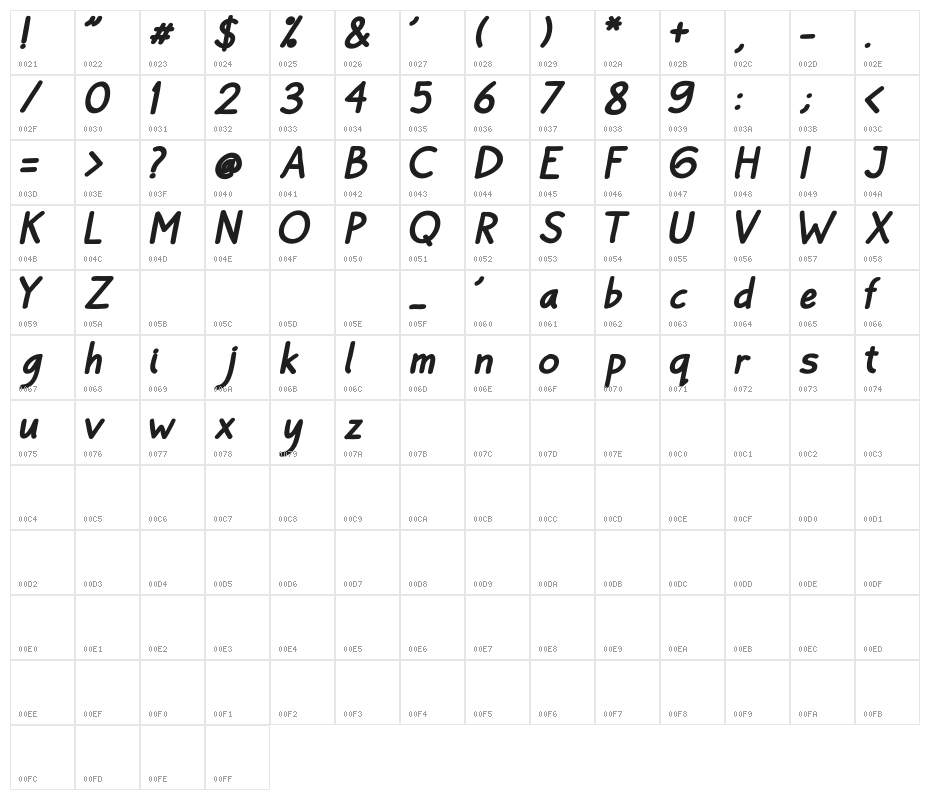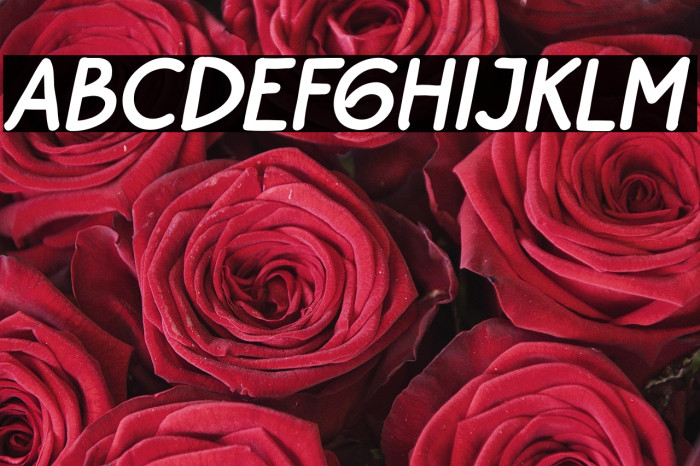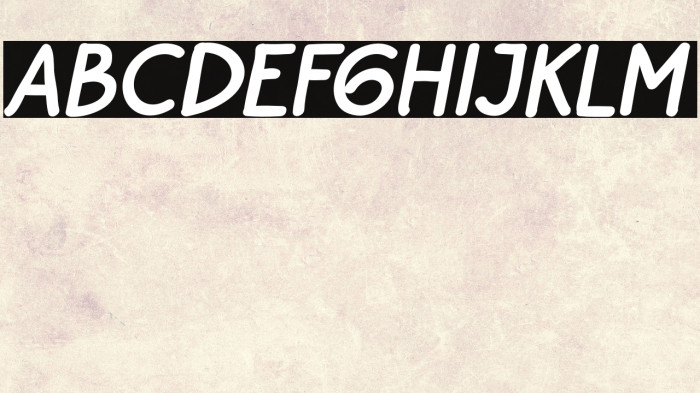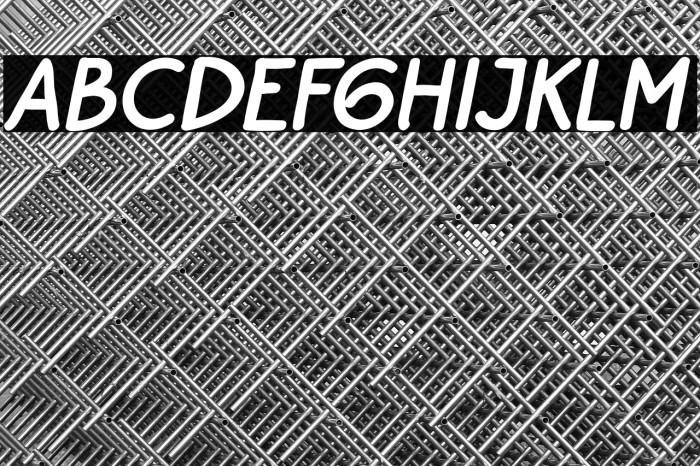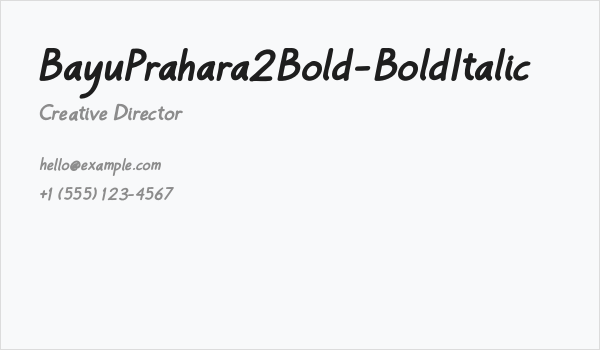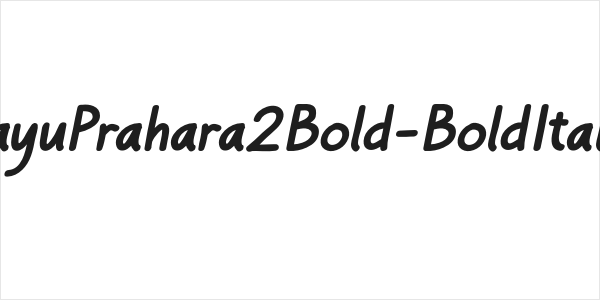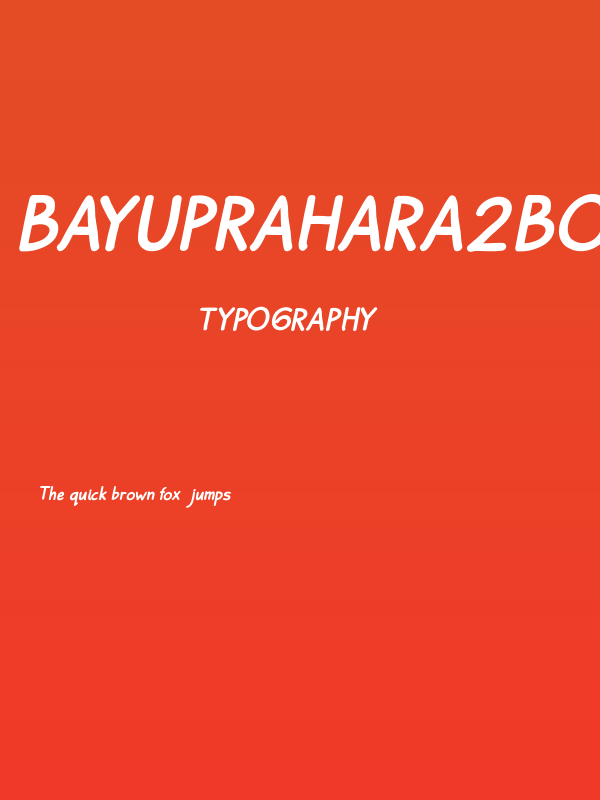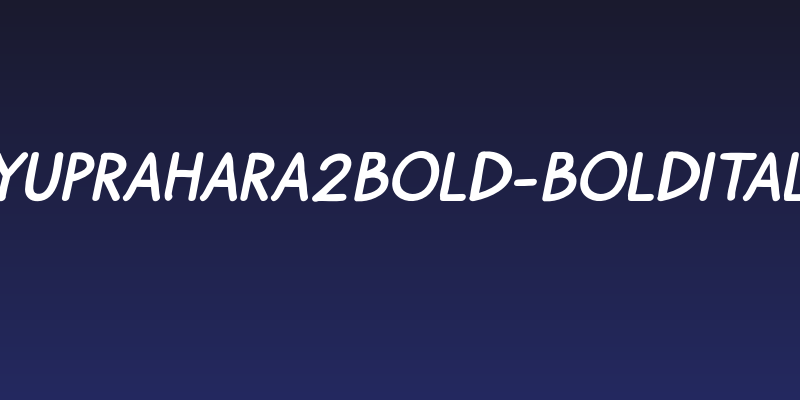
BayuPrahara2Bold-BoldItalic Font
BayuPrahara2Bold-BoldItalic Description
This font features a bold and italic style with a handwritten appearance, characterized by smooth, flowing curves and a slightly slanted orientation. The uppercase and lowercase letters maintain a consistent stroke thickness, giving it a cohesive look. The numerals and special characters are designed to match the overall aesthetic, providing a harmonious visual experience. The font's playful yet sophisticated style makes it suitable for a variety of creative applications.
| Proposed Projects | Ideal for branding, packaging, greeting cards, and creative projects that require a personal touch. |